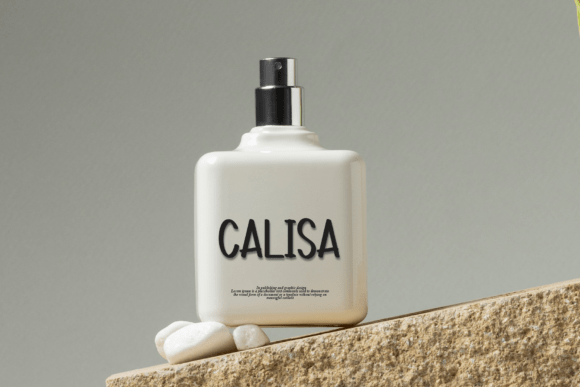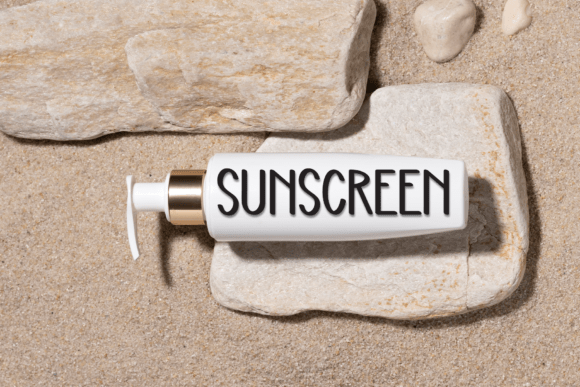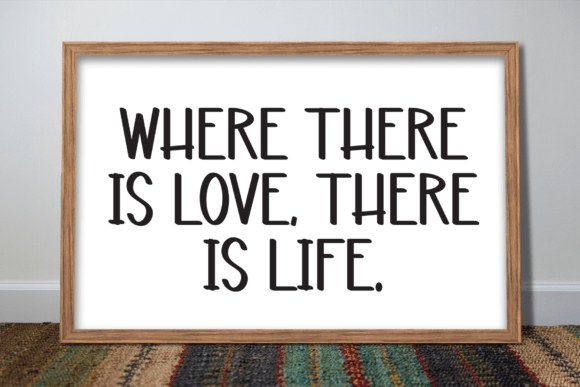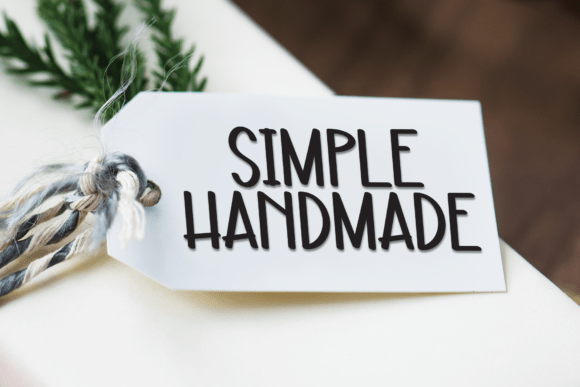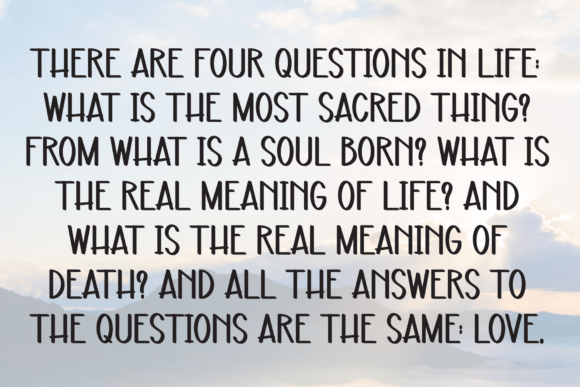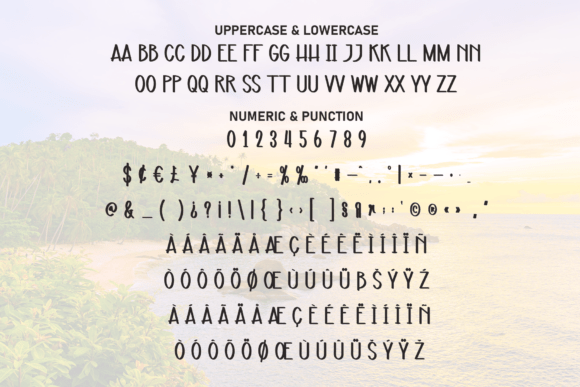
Discover Your Inner Artist with the Allure of Beauty Island Font
Do you ever find yourself stuck in a creative rut, desperately searching for that one element to bring your design to life? We’ve all been there – staring at a blank page, wondering what spark will ignite our imagination. For designers seeking a touch of warmth and whimsy, the answer lies in the enchanting Beauty Island Font.
This delightful handwritten display font is perfect for infusing your projects with a sense of playfulness and charm. Whether you’re crafting wedding invitations, designing greeting cards, or simply looking to add a dash of personality to your work, Beauty Island Font is the perfect companion. Its endearing nature makes it an invaluable asset for designers seeking to connect with their audience on a deeper level.
Beauty Island Font Key Features
- Unique Characteristic: Includes a set of hand-drawn, elegant glyphs and ornaments, perfect for creating a sophisticated and luxurious design
Beauty Island Font Review
I recently had the chance to work with the Beauty Island Font, and I must say, it’s a lovely addition to any design project. ✨ The font’s soft, rounded edges and elegant curves create a warm and inviting atmosphere, making it perfect for beauty, fashion, or wellness-related designs. ✨ The font’s versatility also makes it suitable for a wide range of applications, from product packaging to website headers.
One of the standout features of the Beauty Island Font is its seamless legibility. ✨ The font is well-designed, with clear distinctions between letters and numbers, making it easy to read even at small sizes. The font also comes with a range of weights, from light to bold, allowing for maximum flexibility in your design.
- ⚠️ The font may not be suitable for designs that require a more edgy or modern aesthetic.
- ⚠️ Some users may find the font’s rounded edges too soft or cursive-like, which may not be ideal for certain design applications.
Overall, the Beauty Island Font is a beautiful and versatile choice for designers looking to add a touch of elegance to their projects. While it may not be suitable for every design style, its strengths far outweigh its limitations, making it a great addition to any design library.
Some common use cases for the Beauty Island Font include:
– Creating elegant and sophisticated invitations or event materials
– Designing luxurious and high-end branding materials
– Adding a touch of elegance to digital products or websites
– Creating beautiful and eye-catching social media graphics
– Using it in fashion or beauty-related projects to give a sophisticated and glamorous feel.
Alternatives to “Beauty Island Font” for Designers
Great Vibes is a beautiful, elegant script font that is perfect for creating a sophisticated and luxurious feel in designs. It features flowing connections and organic shapes that evoke a sense of refinement and high-end quality.
Comparison to Beauty Island Font: While Beauty Island Font has a more whimsical and playful feel, Great Vibes is more polished and sophisticated. Great Vibes is ideal for high-end branding, luxury packaging, and upscale advertising.
Carolyna Pro is a modern, elegant sans-serif font that is perfect for creating a clean and sophisticated look in designs. It features a unique blend of geometric and organic shapes that give it a distinctive and eye-catching feel.
Comparison to Beauty Island Font: Carolyna Pro is more modern and sleek than Beauty Island Font, which has a more vintage and whimsical feel. Carolyna Pro is ideal for modern branding, tech companies, and minimalist designs.
Alex Brush is a beautiful, elegant script font that is perfect for creating a romantic and vintage feel in designs. It features flowing connections and organic shapes that evoke a sense of warmth and nostalgia.
Comparison to Beauty Island Font: While Beauty Island Font has a more playful and whimsical feel, Alex Brush is more elegant and sophisticated. Alex Brush is ideal for romantic branding, wedding invitations, and vintage-inspired designs.